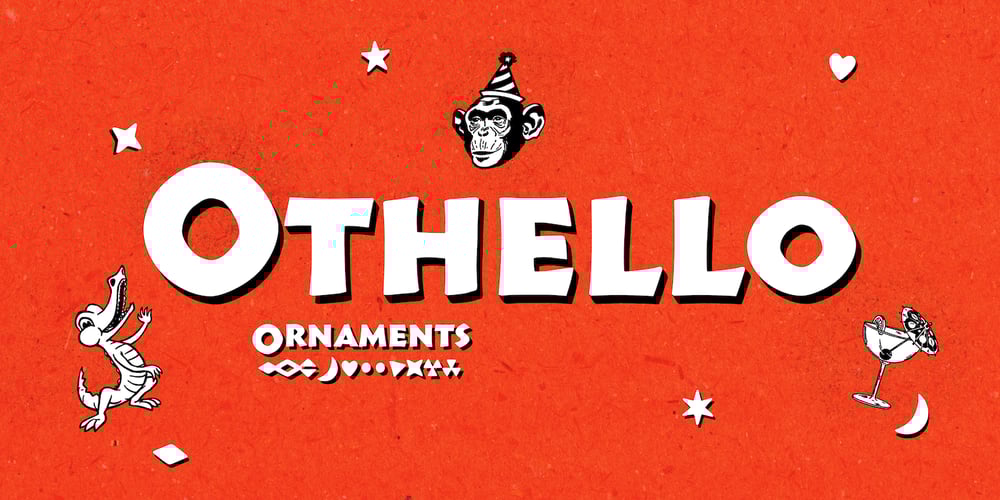
Othello
Othello font
Othello Font Family was designed by Carl Crossgrove, Steve Matteson, Monotype Design Studio and published by Monotype. Othello contains 2 styles and family package options. Othello’s dense graphic demeanor delivers a straightforward, no-nonsense message. This versatile revival has a direct, experiential quality that suggests action and the outdoors. Originally released by Monotype in 1928, Othello was offered as competition to Rudolf Koch’s Neuland typeface. This new digital version includes a wide variety of previously unavailable characters. Small caps, alternate letters, ligatures, and special joined logotype” characters add to the versatility of this powerful communications tool. These many letter variants create new possibilities for headlines and short text blocks in advertisements, signage, and packaging, suggesting the immediacy of woodcuts or hand-drawn lettering.”